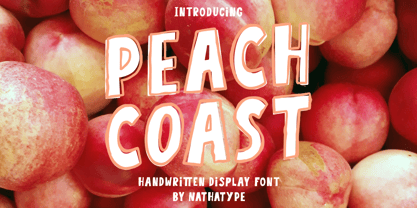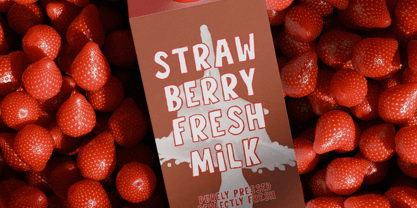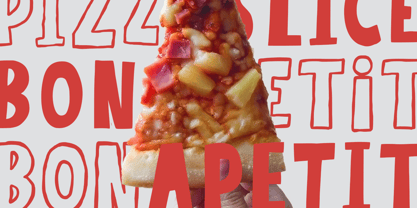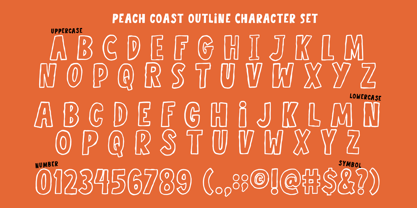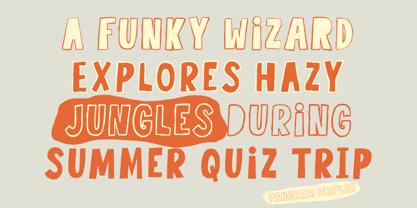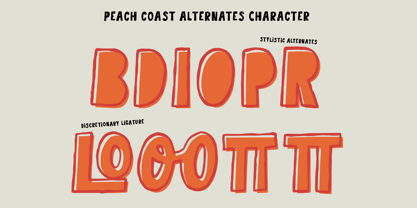
Peach Coast
by Nathatype
The Peach Coast Font Family was designed by Donis Miftahudin and published by Nathatype. Peach Coast contains 2 styles and family package options. More about this family
Peach Coast is a bold, uppercases display font that captures the perfect balance between retro charm and modern design. Designed to grab attention, Peach Coast brings a sunny, coastal vibe to your typography. Its smooth curves bring out a friendly and approachable feel. The outlined weight adds depth and dimension, allowing your text to pop off the page or screen. In addition, enjoy the features here. Features: Alternates Ligatures Multilingual Supports PUA Encoded Numerals and Punctuations Peach Coast fits in branding, quotes, name cards, apparels, logos, posters, and many more designs. Find out more ways to use this font by taking a look at the font preview. Thanks for purchasing our fonts. Hopefully, you have a great time using our font. Feel free to contact us anytime for further information or when you have trouble with the font. Thanks a lot and happy designing.